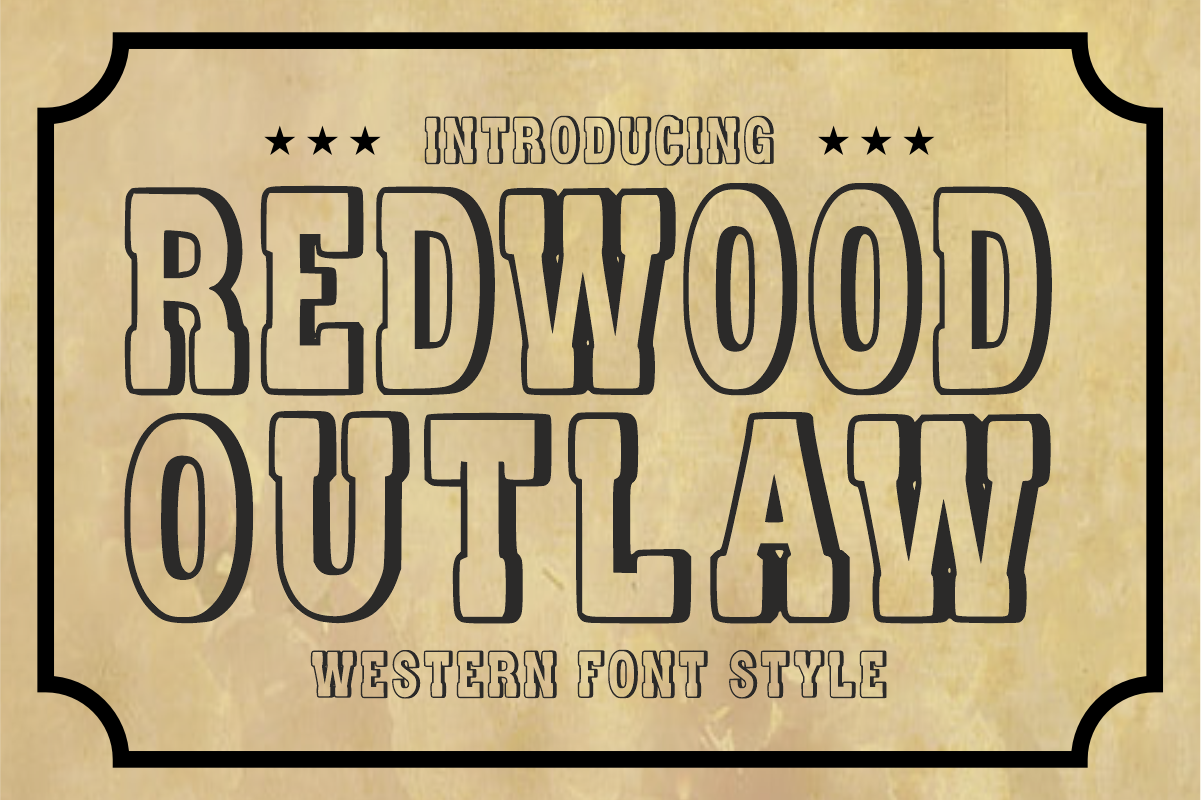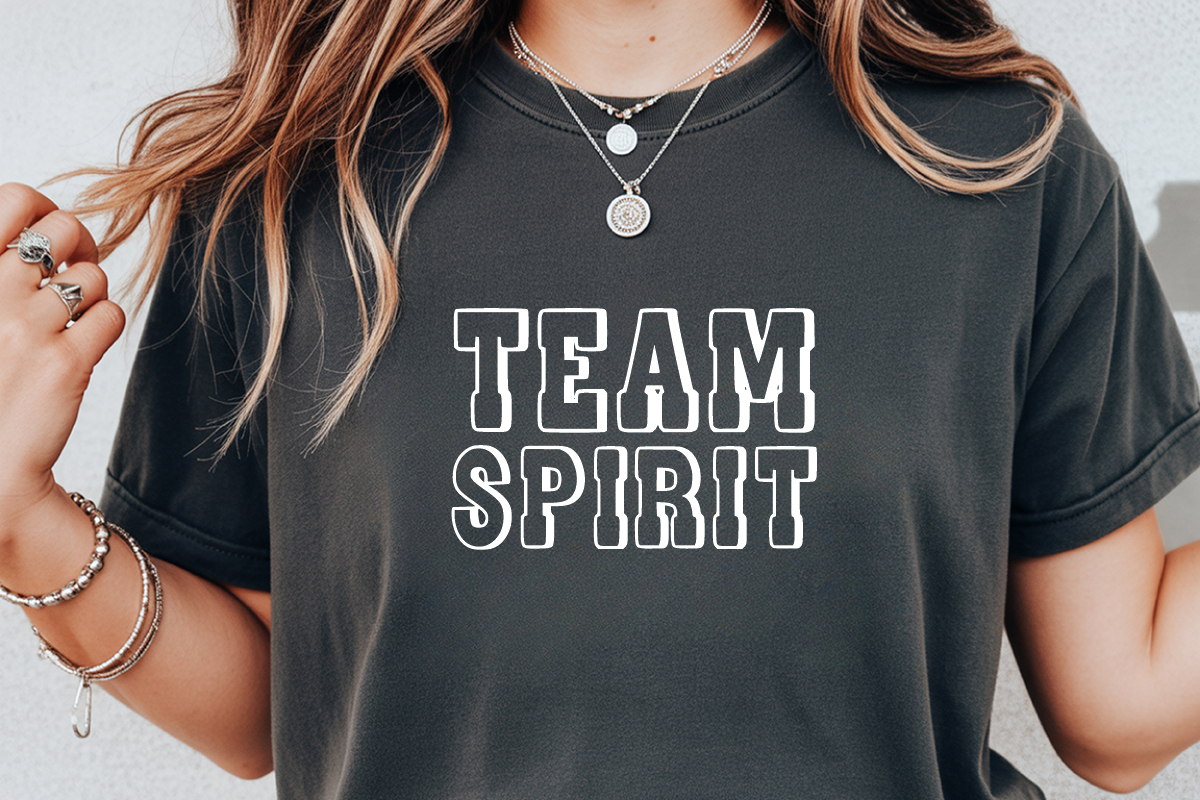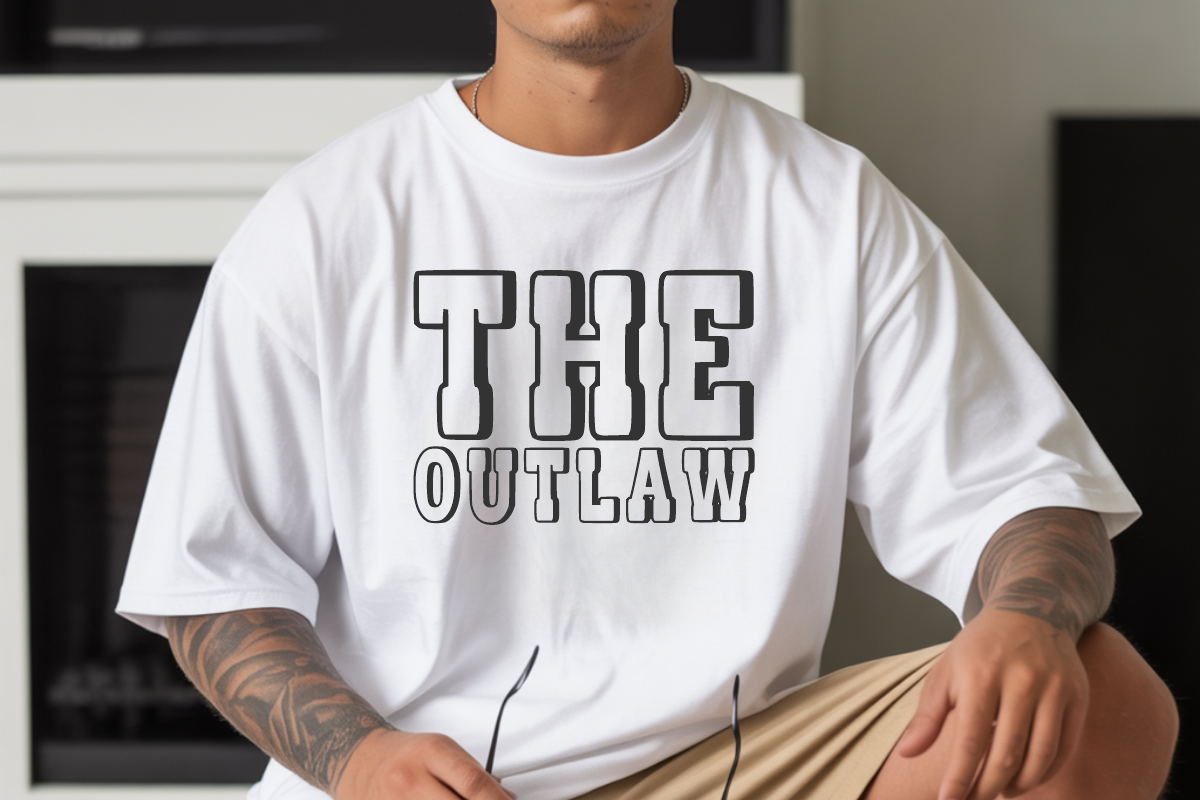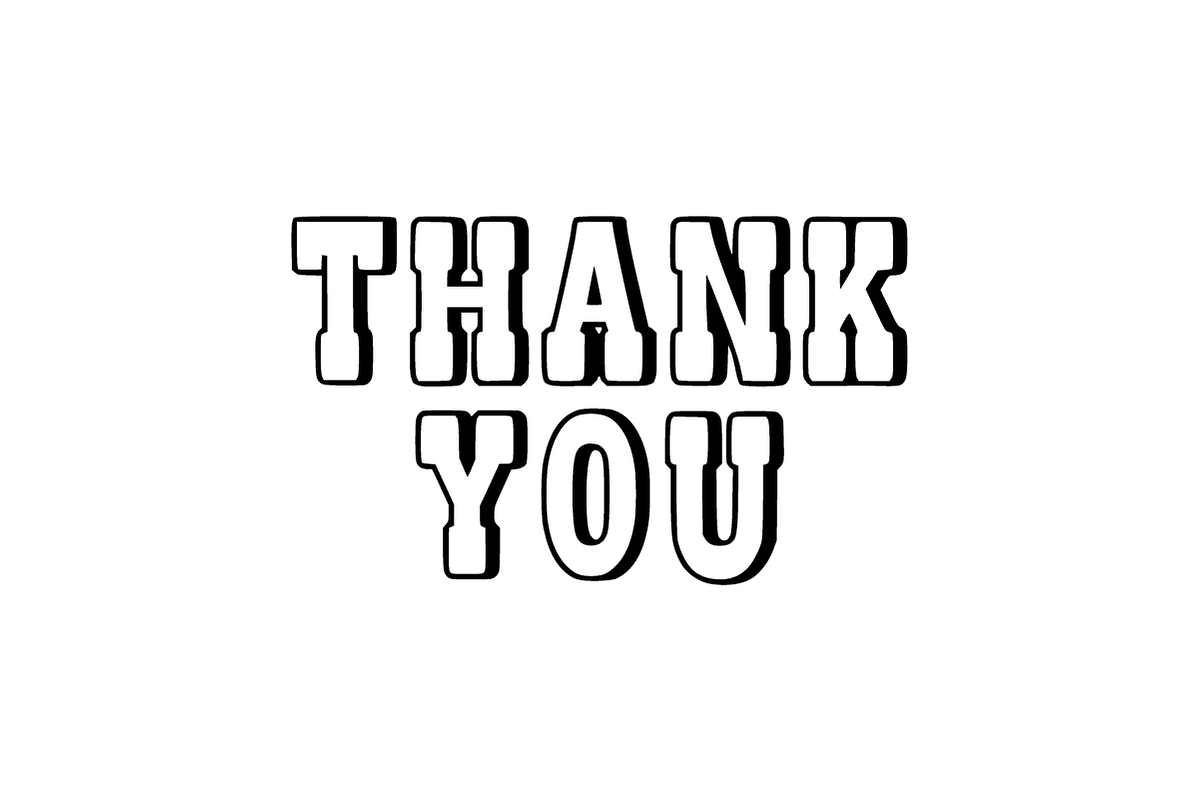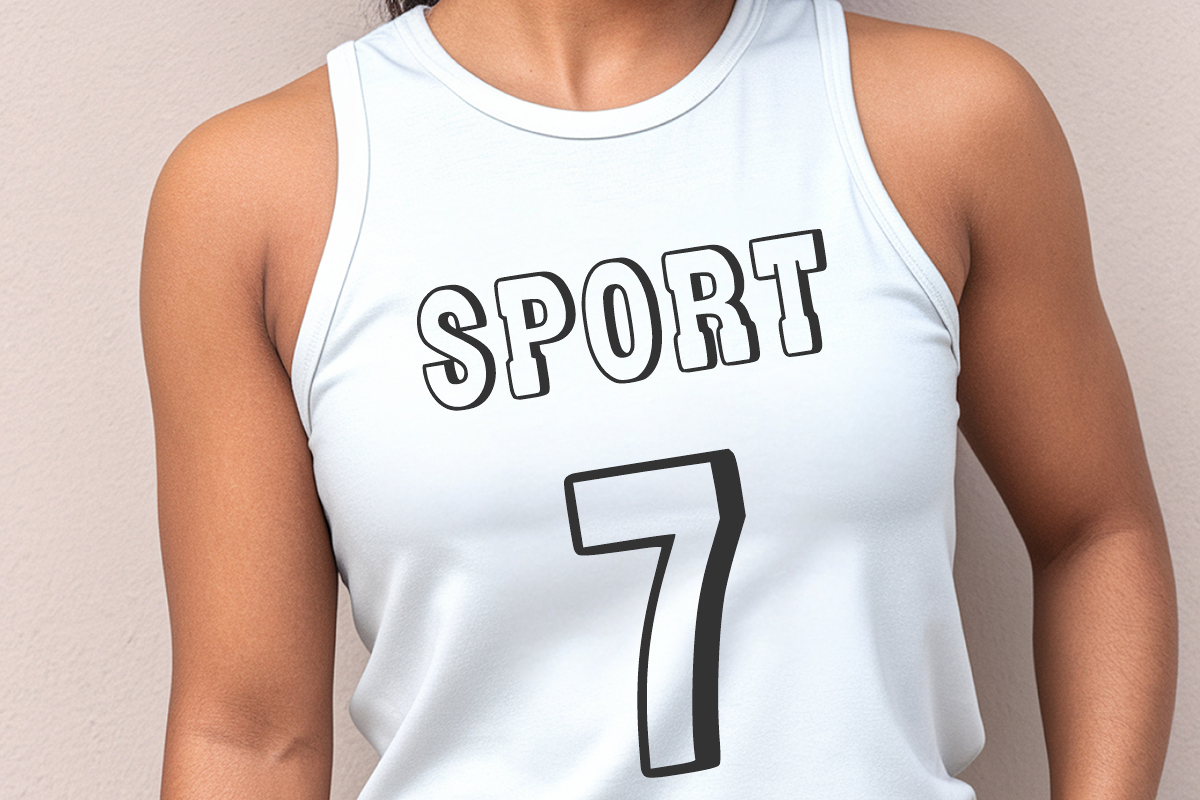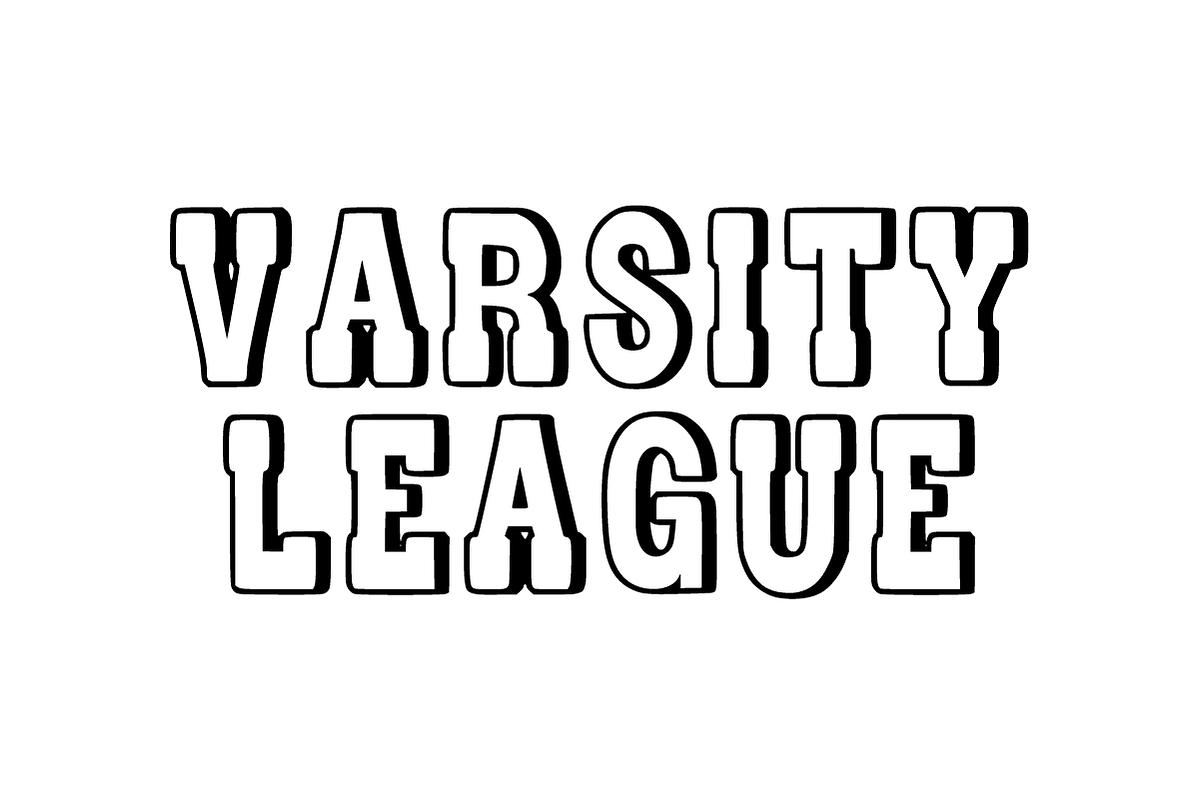
Redwood Outlaw -Western Display Font
🤠 Howdy Creators! Meet Redwood Outlaw - The Ultimate Western Display Font! 🌵
Ready to bring the bold, rugged spirit of the frontier to your next design? Redwood Outlaw is a premium display font featuring tall, strong characters with a clean western slab style. It perfectly captures classic saloon nostalgia, cowboy heritage, and vintage Americana vibes with a modern, crisp outline execution!
It’s bold, timeless, and meticulously crafted for designers who want their headlines, branding, and merchandise to stand out with authentic outlaw charm.
✨ What’s Packed in the Frontier Kit:
_ 🔠 _\Bold Uppercase Letters (A-Z)\\* – Tall, powerful block characters with a rustic western soul.
_ 🔢 _\Matching Numbers (0-9)\\* – Perfect for rodeo years, vintage dates, or pricing tags.
_ 🔣 _\Simple Symbols & Punctuation\\* – Essential basics to wrap up your layouts seamlessly.
🎯 Perfect For Your Next Best-Selling Project:
\* 👕 Badass T-Shirts, Trucker Hats, Hoodies & Country-Style Streetwear Apparel
\* 🤠 Rodeo Posters, Saloon Branding, Wanted Signs, Badges & Wild West Logos
\* 🥤 Adventurous Stickers, Craft Product Packaging, and Punchy Social Media Headers